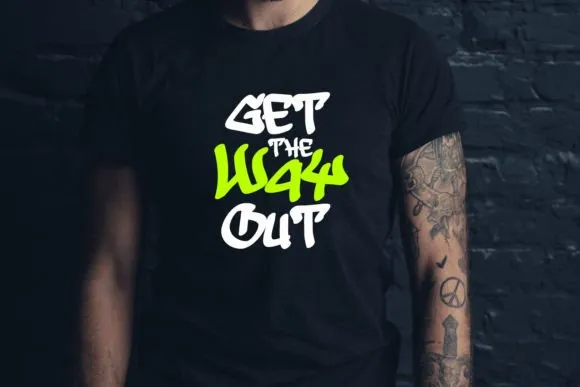
Something Font is a magnificent, spray painting style show textual style that has a cool, road craftsmanship vibe.
This textual style is appropriate for plans, for example, shirts, athletic apparel, logos, notices, dress, and the sky is the limit from there.